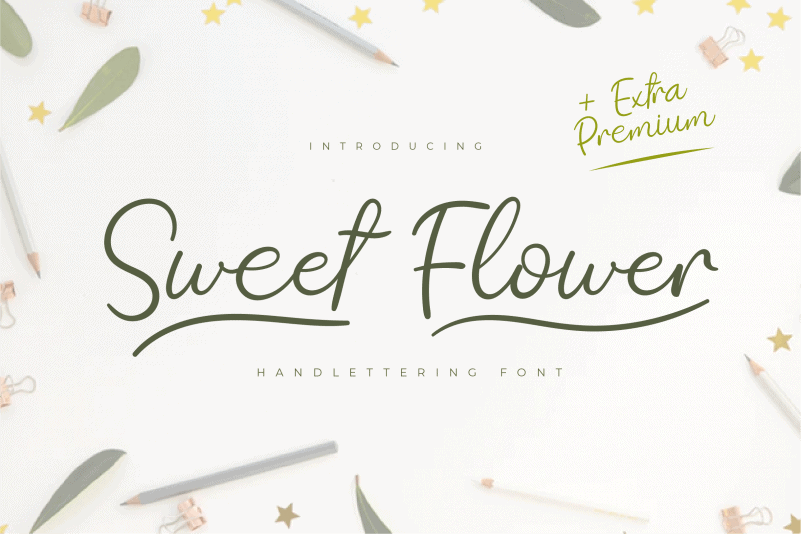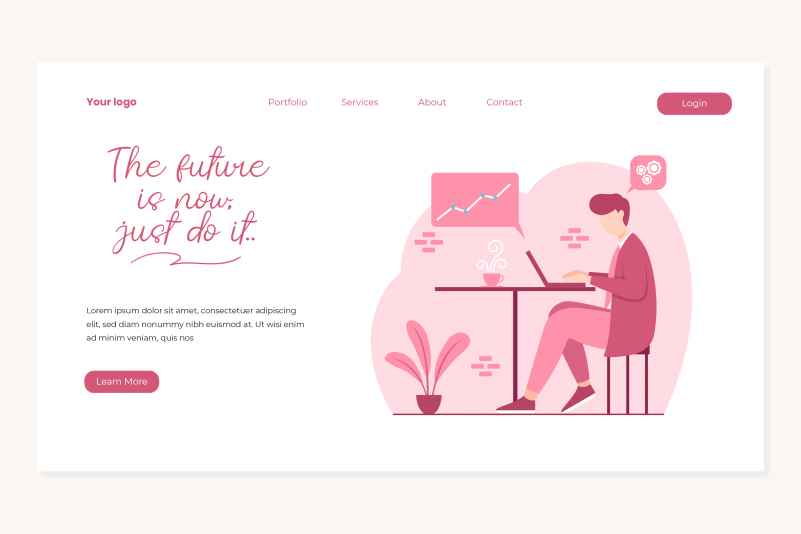
Sweet Flower Script Font
Sweet Flower Script Font preview image 2
Sweet Flower Script Font is a delicate, elegant and flowing handwritten font. It has beautiful and well balanced characters and as a result, it matches a wide pool of designs. Add it to your most creative ideas and notice how it makes them come alive!